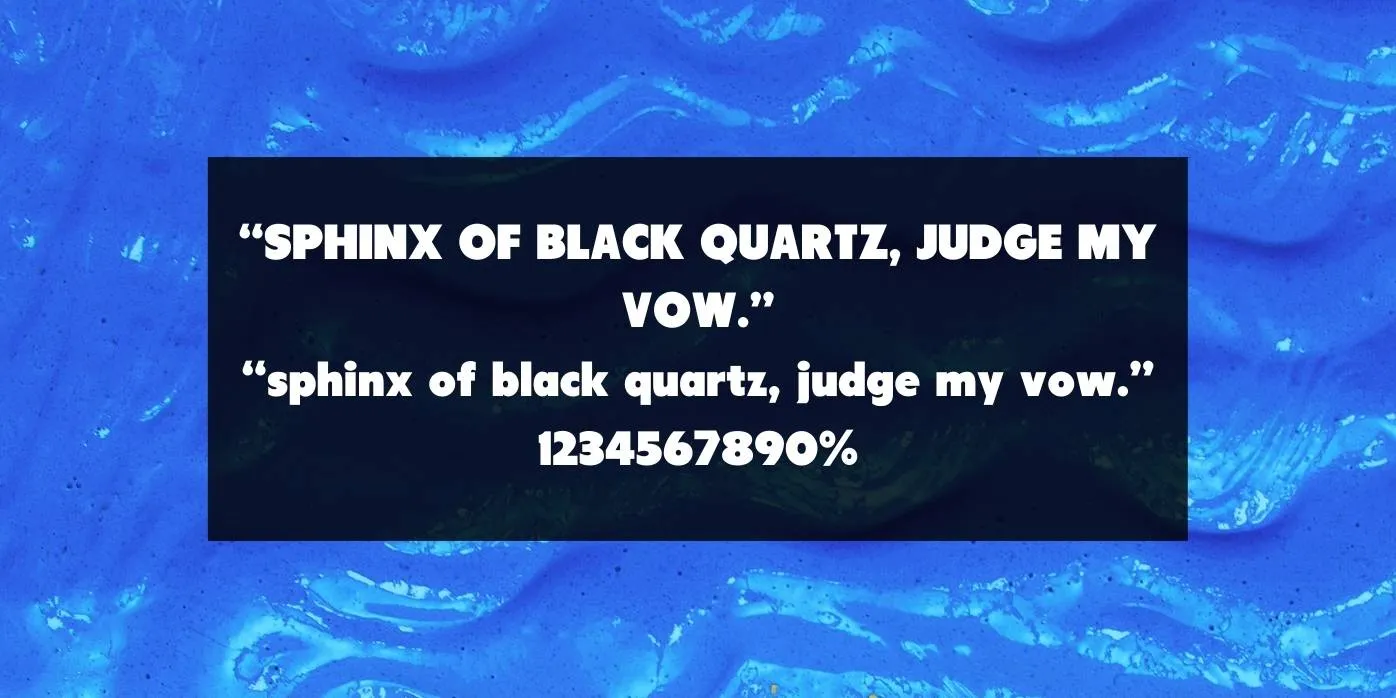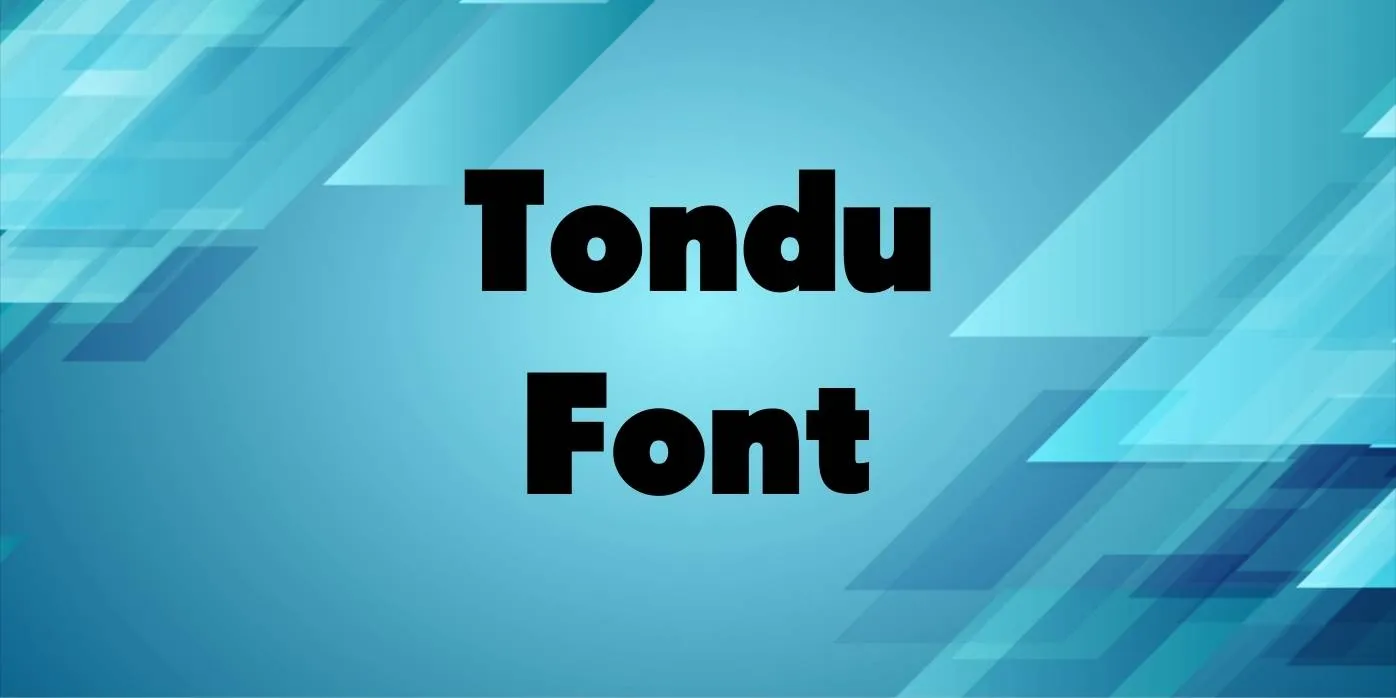
Tondu Font
Today, we present a very marvelous and stunning typeface named Tondu Font. This font is a basic sans serif typeface that contains different styles. It supports both TTF and OTF formats. This gorgeous font was created by Mans Greback in 2019.
This sans serif typeface has been downloaded 10,000+ times till now. You can use this stylish font for various purposes such as website designing, banner making, poster creation, and many other places. It is perfect for use in Canva. For more classic features, you will have to use its alternative lemon milk light font which has the same features.
This beautiful sans-serif typeface is available in six different styles including regular, bold, italic, light, black, and medium. Each style contains its own unique appearance that helps you to create amazing designs. One thing that is best about this font family is its generator tool which is best for graphic designs.